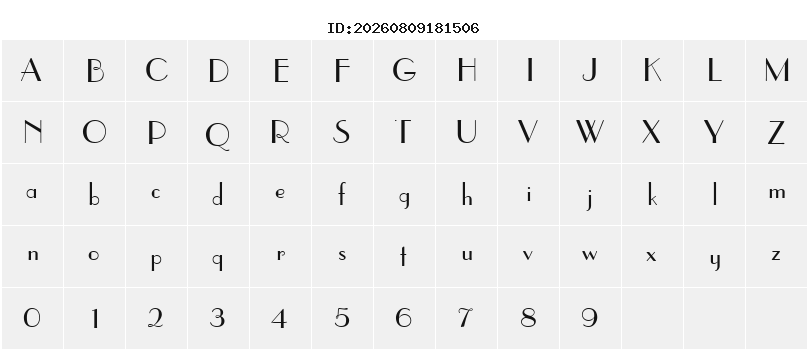
• Font Name: Paragon
Paragon.ttf is a modern, elegant sans-serif font designed for ultimate readability and visual harmony. Perfect for branding, headlines, web design, and print materials.